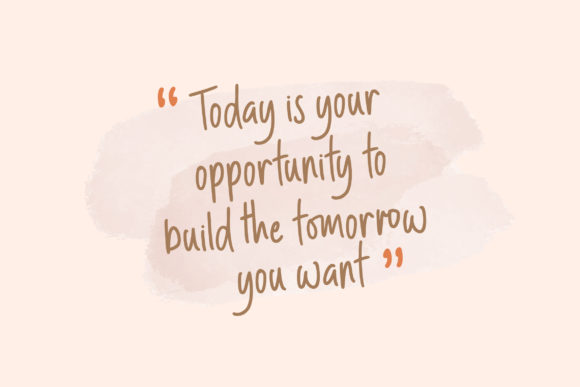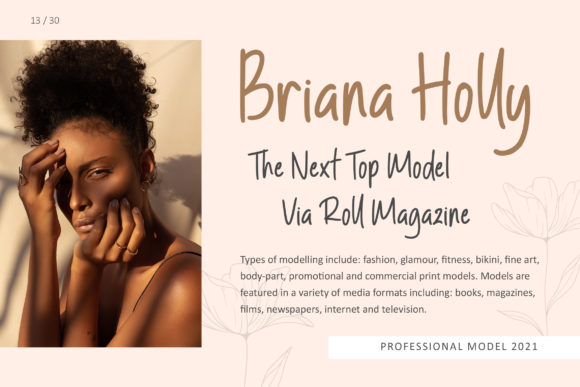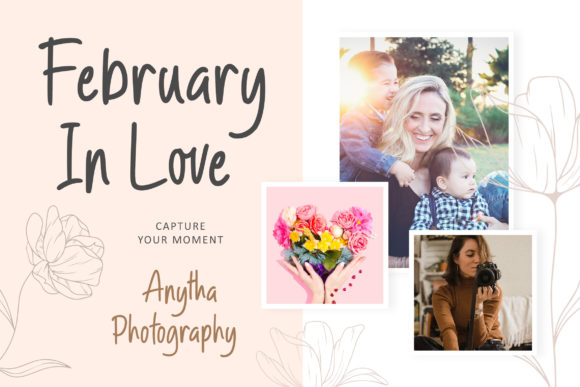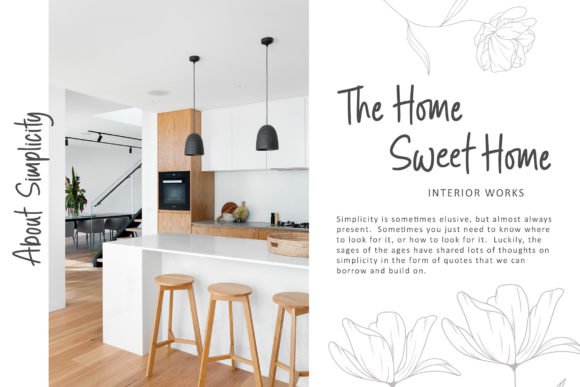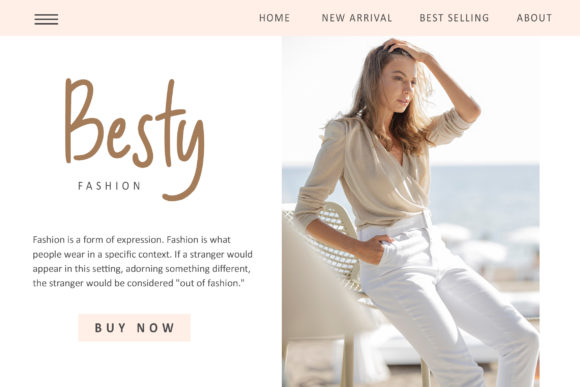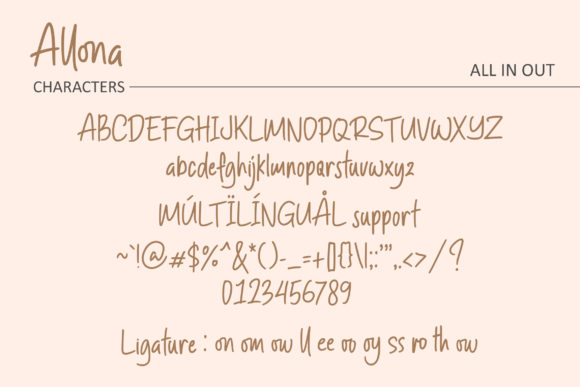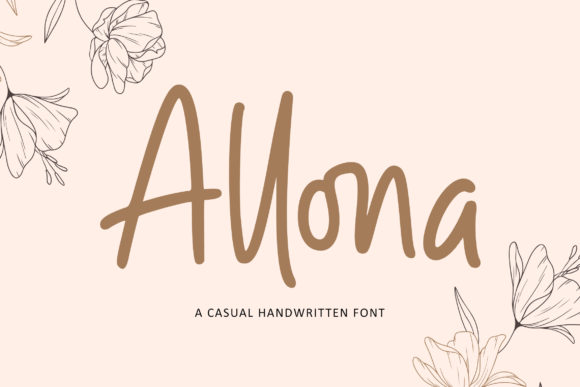
Introducing Allona Font: The Perfect Handwritten Touch for Your Designs
Are you looking for a font that can add a personal touch to your designs? Do you want to create stunning wedding invitations, thank you cards, quotes, and greeting cards that stand out from the rest? Look no further than Allona Font, a beautiful handwritten font that feels equally casual and adaptable.
What Makes Allona Font Special?
Allona Font is a unique and elegant font that is perfect for designers and crafters who want to add a touch of personality to their work. Its handwritten style gives it a warm and inviting feel, making it ideal for a wide range of design projects. Whether you’re creating wedding invitations, business cards, or social media graphics, Allona Font is sure to make your designs look stunning.
Perfect for Wedding Invitations and Stationery
Allona Font is particularly well-suited for wedding invitations and stationery. Its elegant and cursive style makes it perfect for formal and informal wedding invitations, save-the-date cards, and thank you cards. The font’s casual and adaptable nature also makes it suitable for other types of stationery, such as greeting cards, birthday cards, and postcards.
Great for Logos and Business Cards
Allona Font is not just limited to stationery and wedding invitations. Its unique and elegant style also makes it perfect for logos and business cards. The font’s handwritten touch gives it a personal and approachable feel, making it ideal for businesses that want to stand out from the competition.
Why Designers and Crafters Love Allona Font
Designers and crafters love Allona Font for its versatility and ease of use. The font is easy to read and works well in a variety of sizes, making it perfect for both print and digital designs. Additionally, Allona Font is highly adaptable, allowing designers to use it for a wide range of projects, from formal and informal designs to creative and artistic projects.
Tips for Using Allona Font
Here are some tips for using Allona Font in your designs:
- Use Allona Font for headings and titles to add a personal touch to your designs.
- Pair Allona Font with other fonts to create a unique and interesting contrast.
- Use Allona Font for body text to create a warm and inviting feel.
Allona Font is a beautiful and versatile font that is perfect for designers and crafters who want to add a personal touch to their designs. Its handwritten style gives it a warm and inviting feel, making it ideal for a wide range of design projects, from wedding invitations and stationery to logos and business cards. With its ease of use and adaptability, Allona Font is sure to become a favorite among designers and crafters.